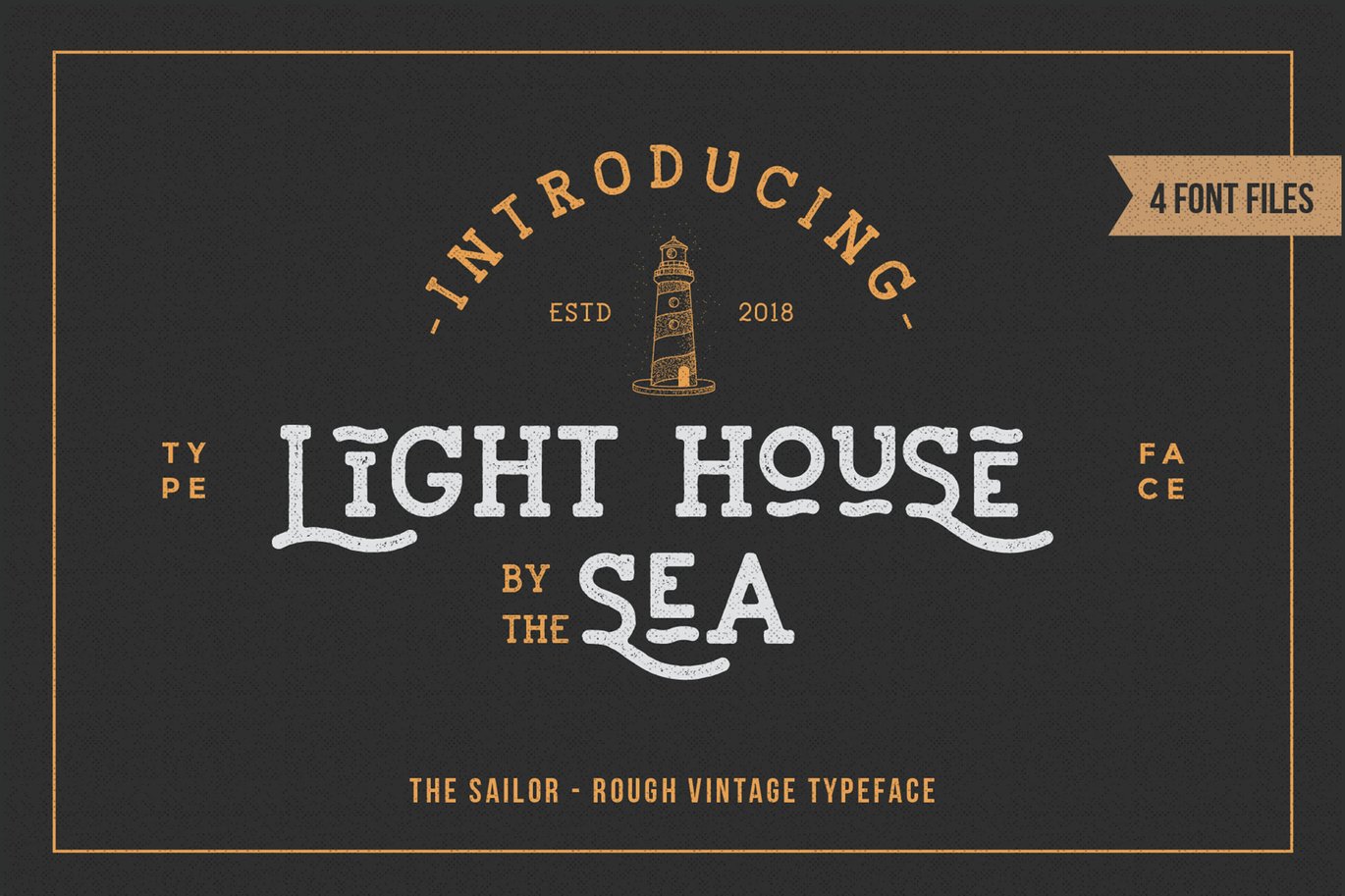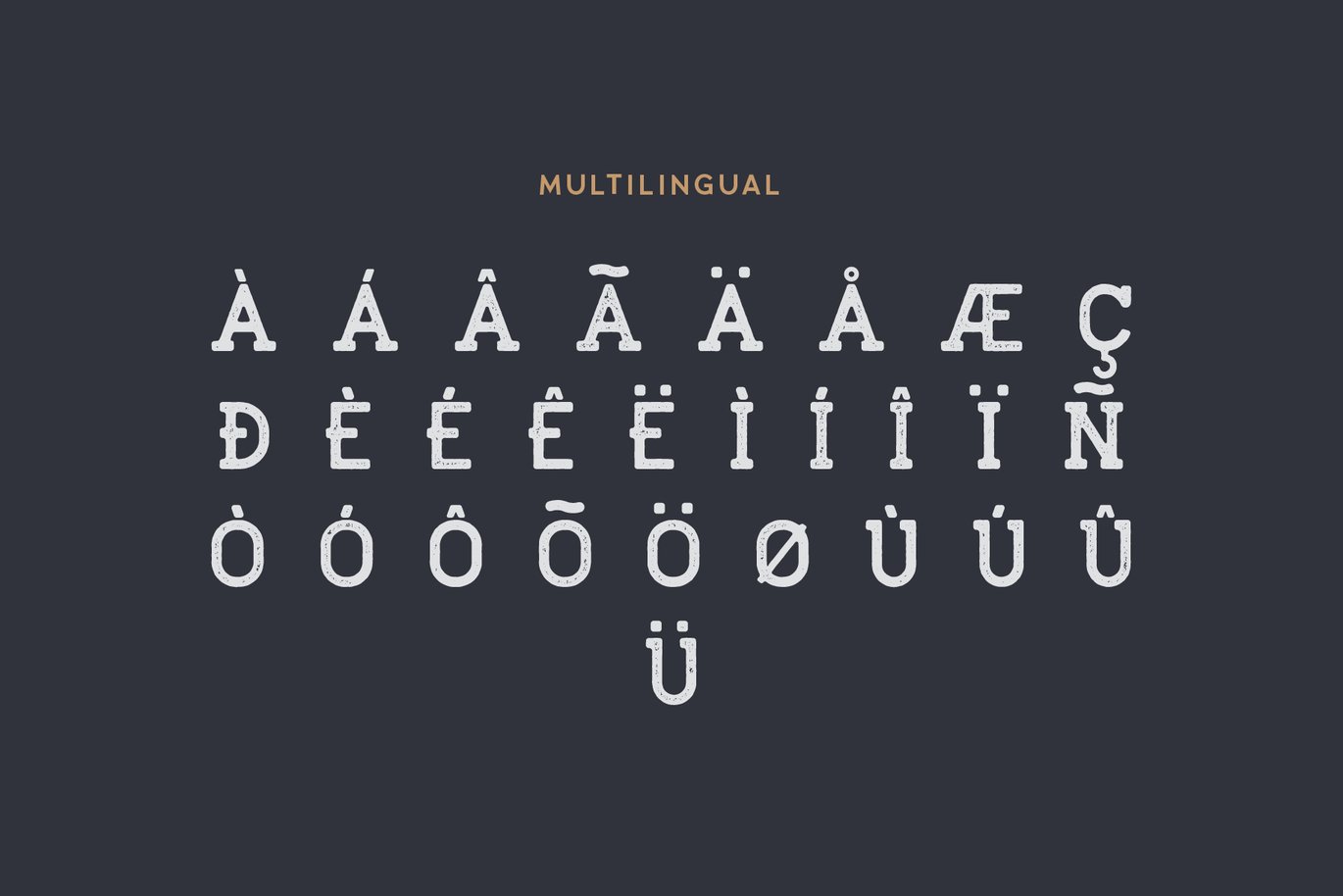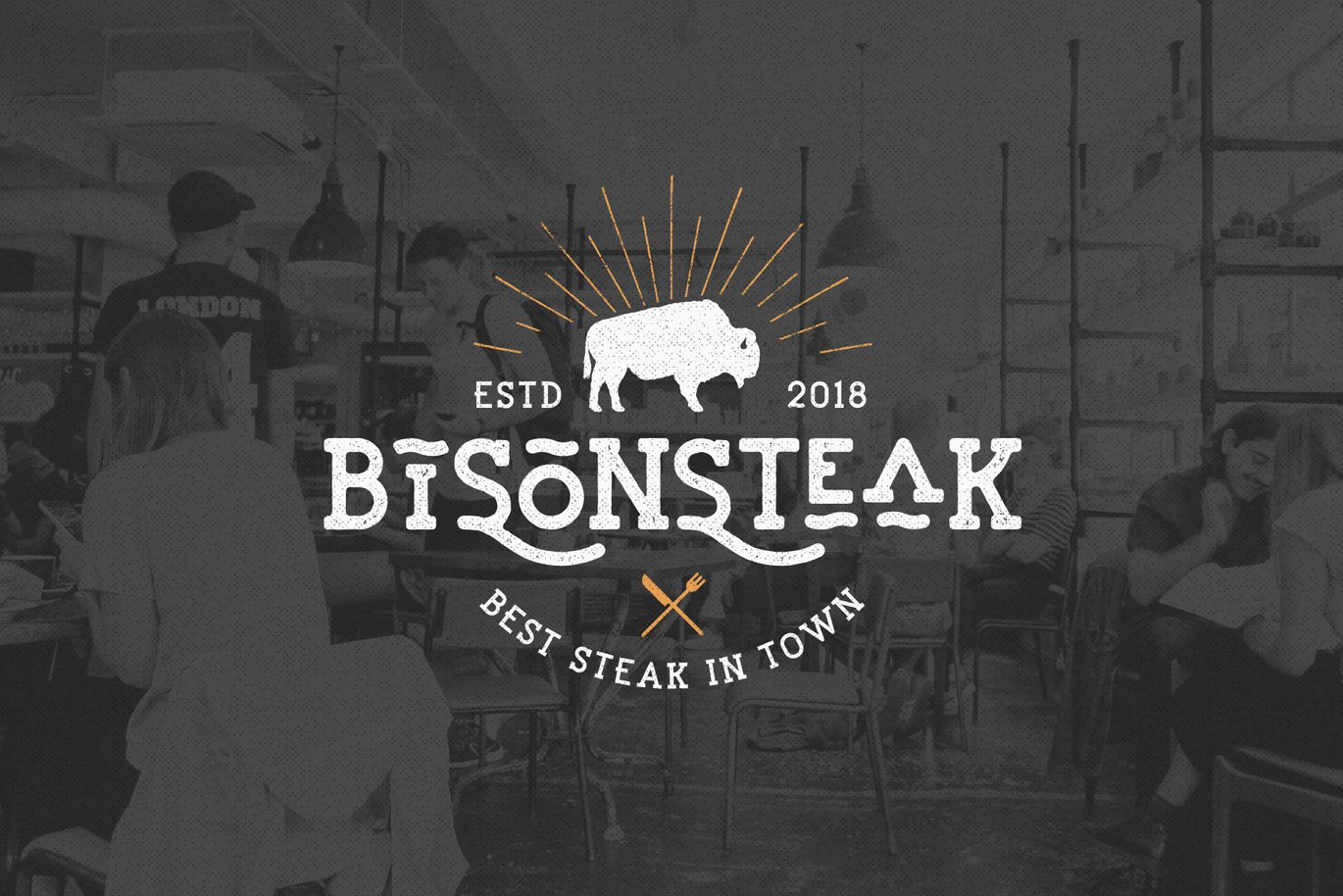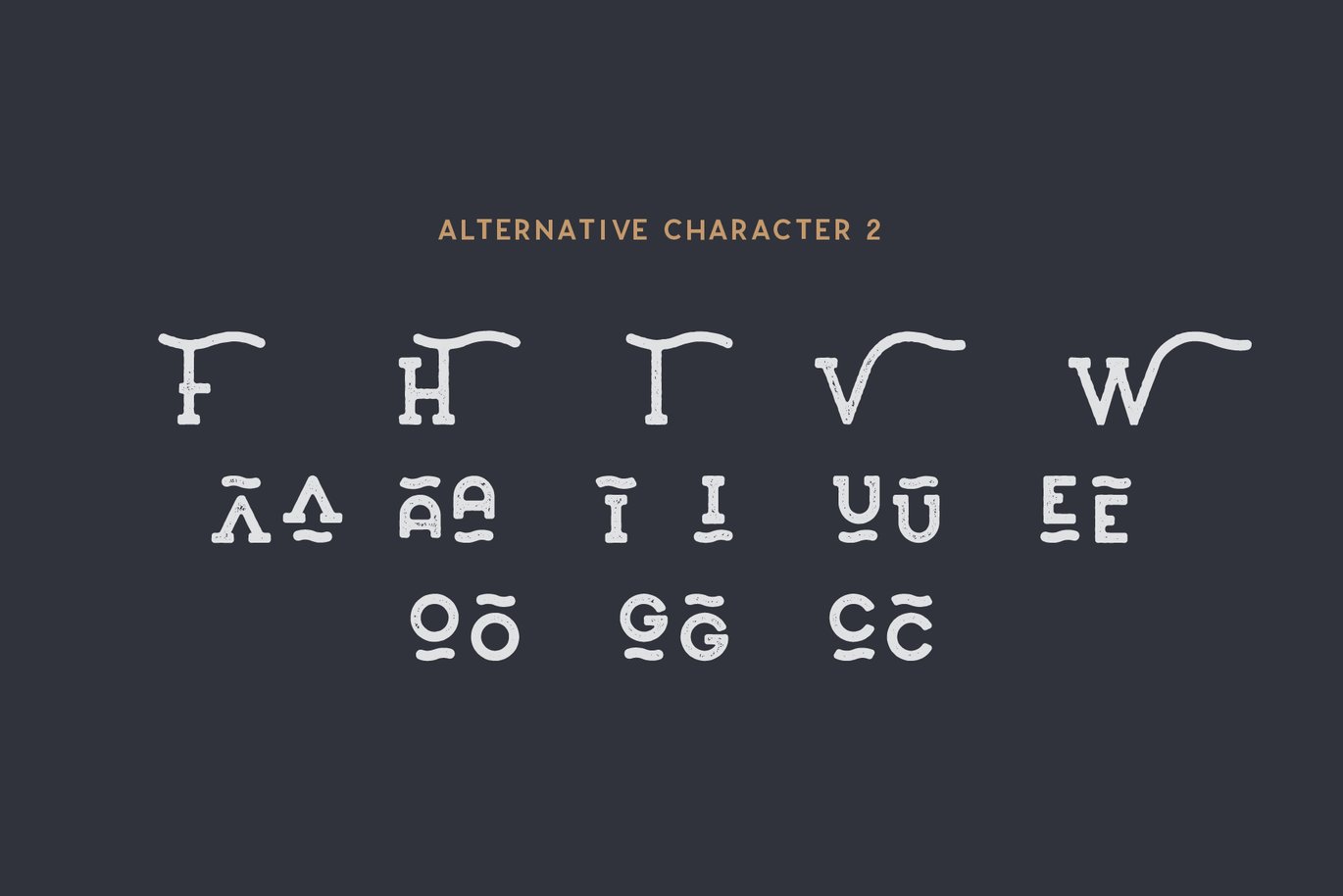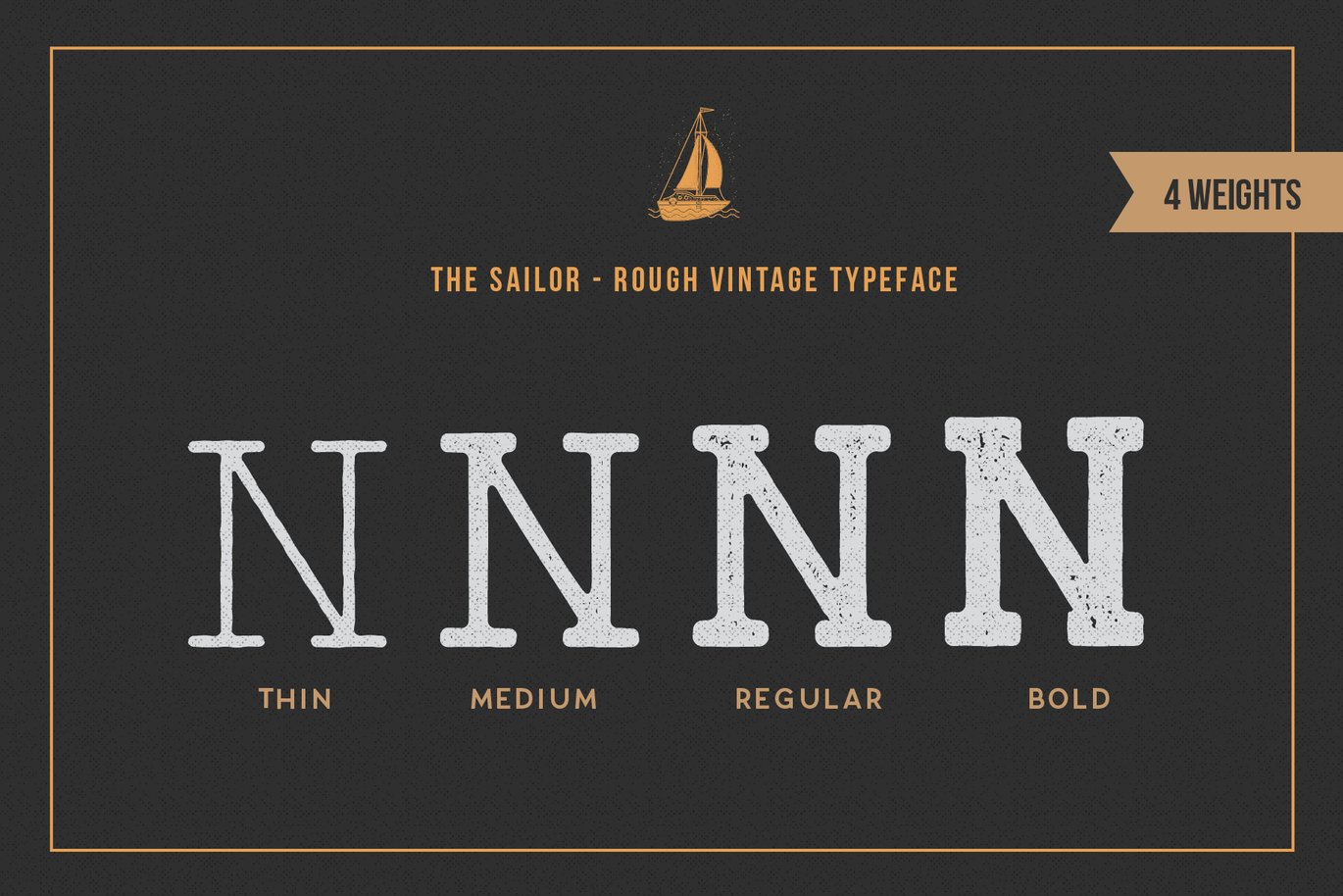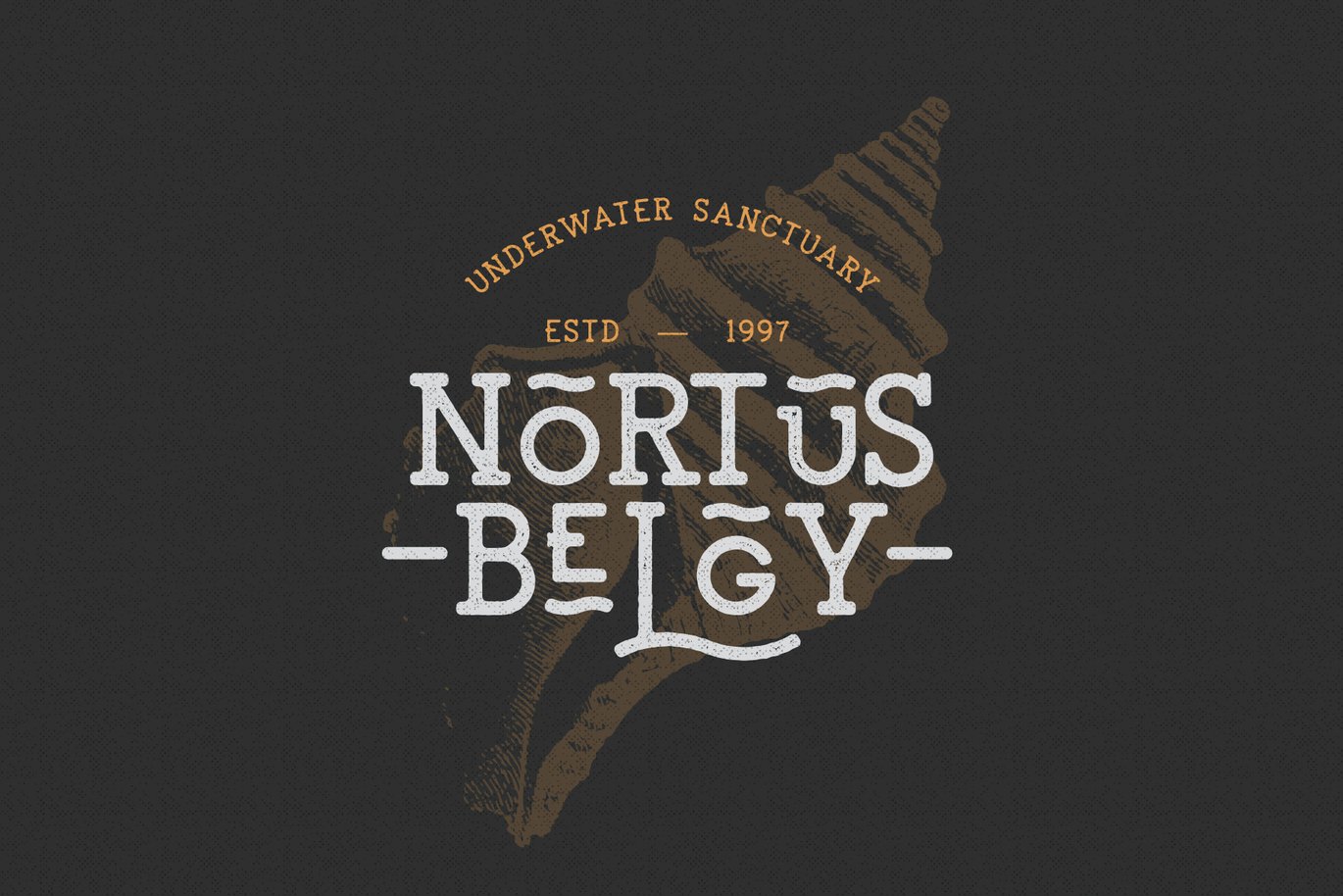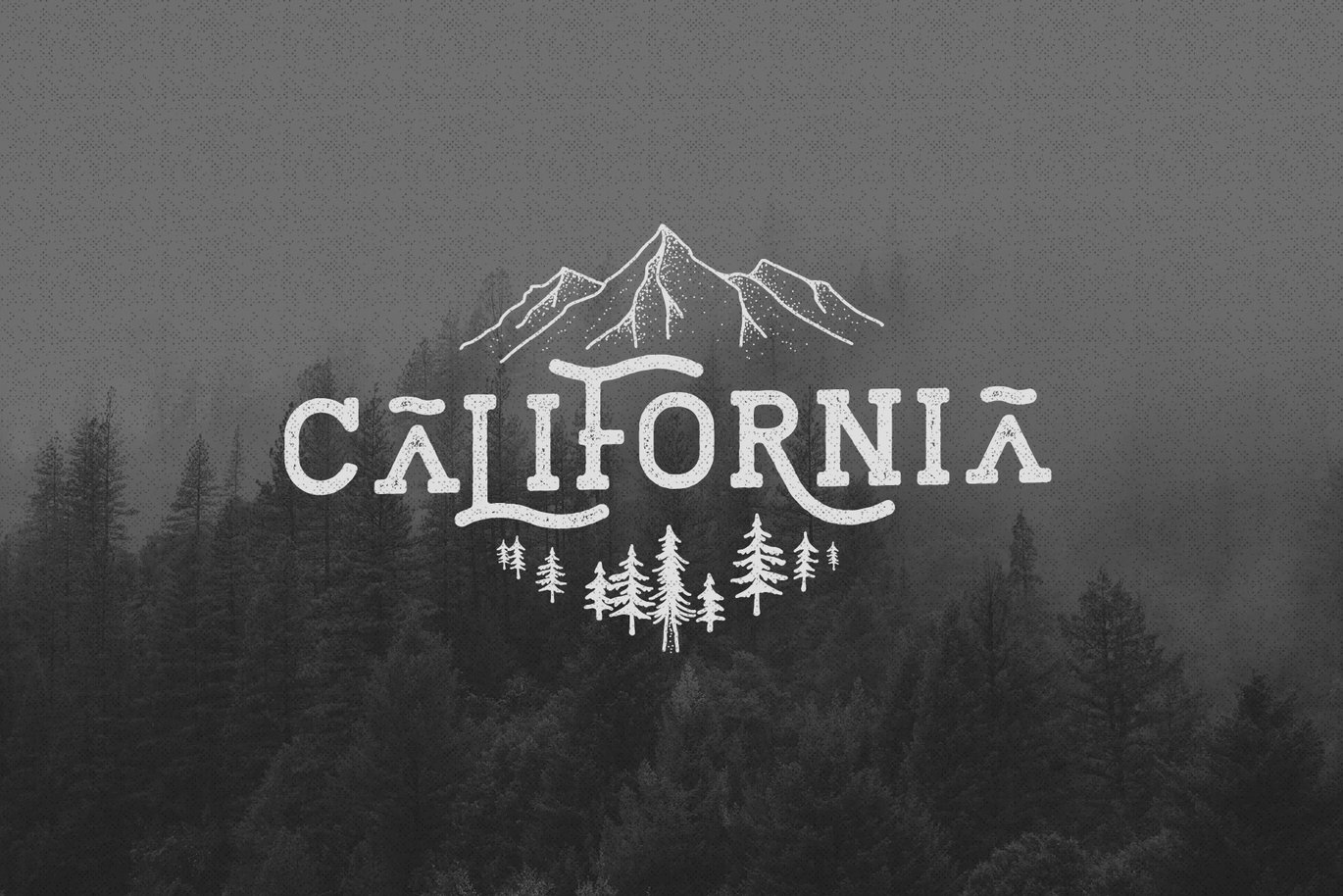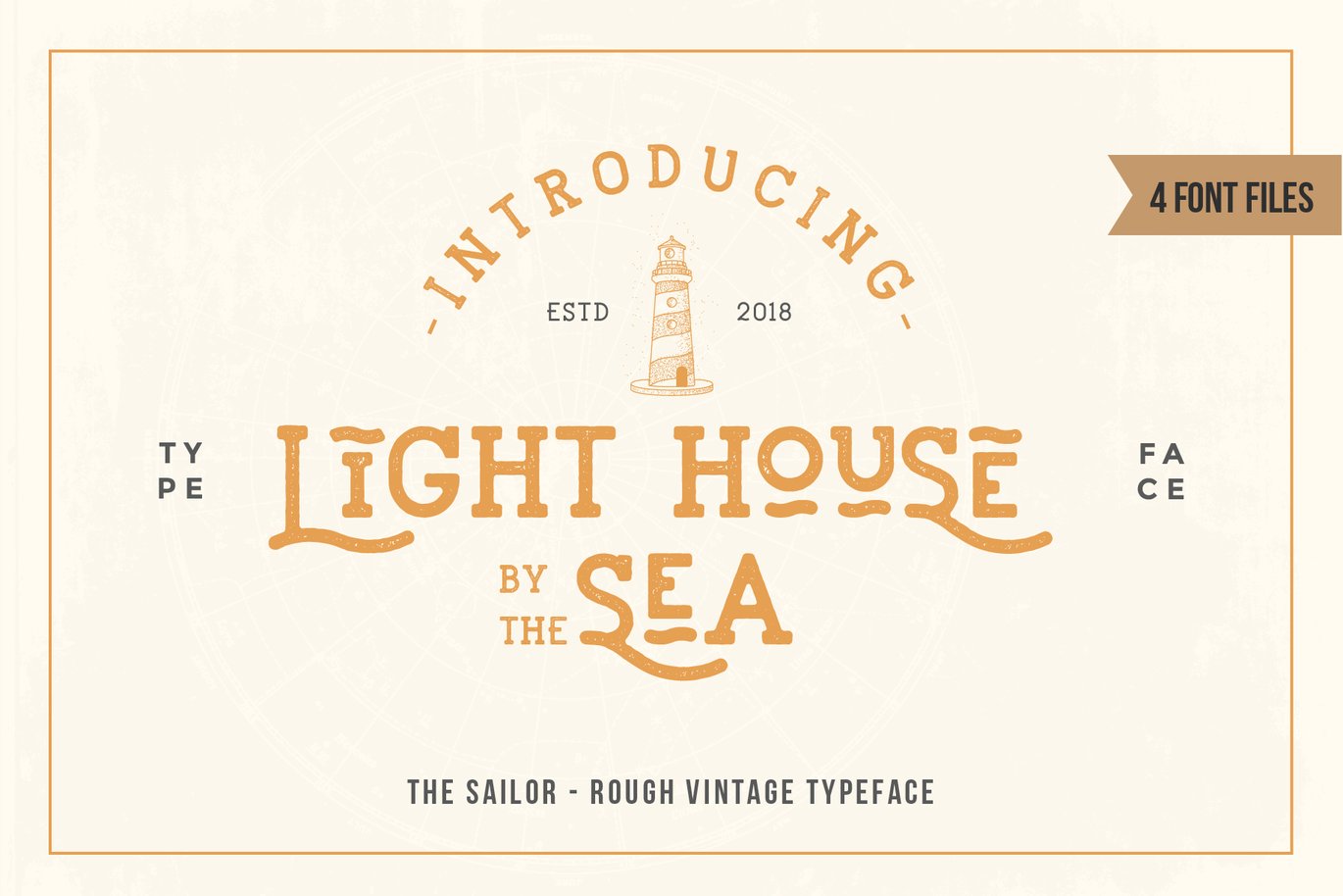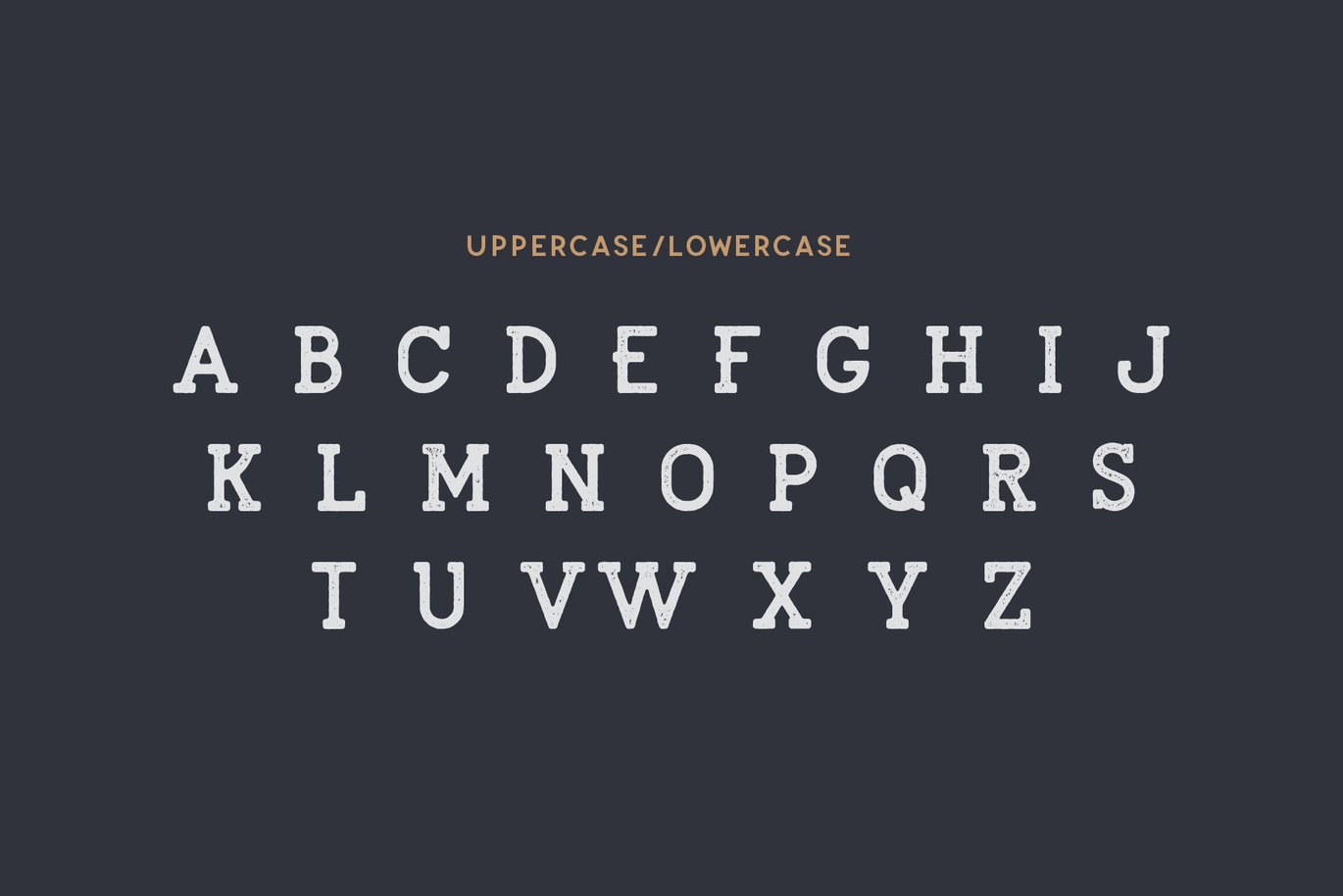
LightHouse – Sailor Rough Typeface
The Sailor Rough Font Collection is textured version of the sailor font. This Rough version comes with Vintage style with Four weight. Made to give you that perfect vintage look for your design. Perfect for Logos, Advertising, Apparel Design, Labels, Signage, Etc. It also contains an uppercase alphabet with alternative character, numbers and symbols.
Four weight
- Light
- Medium
- Bold
- Multiple Language supported